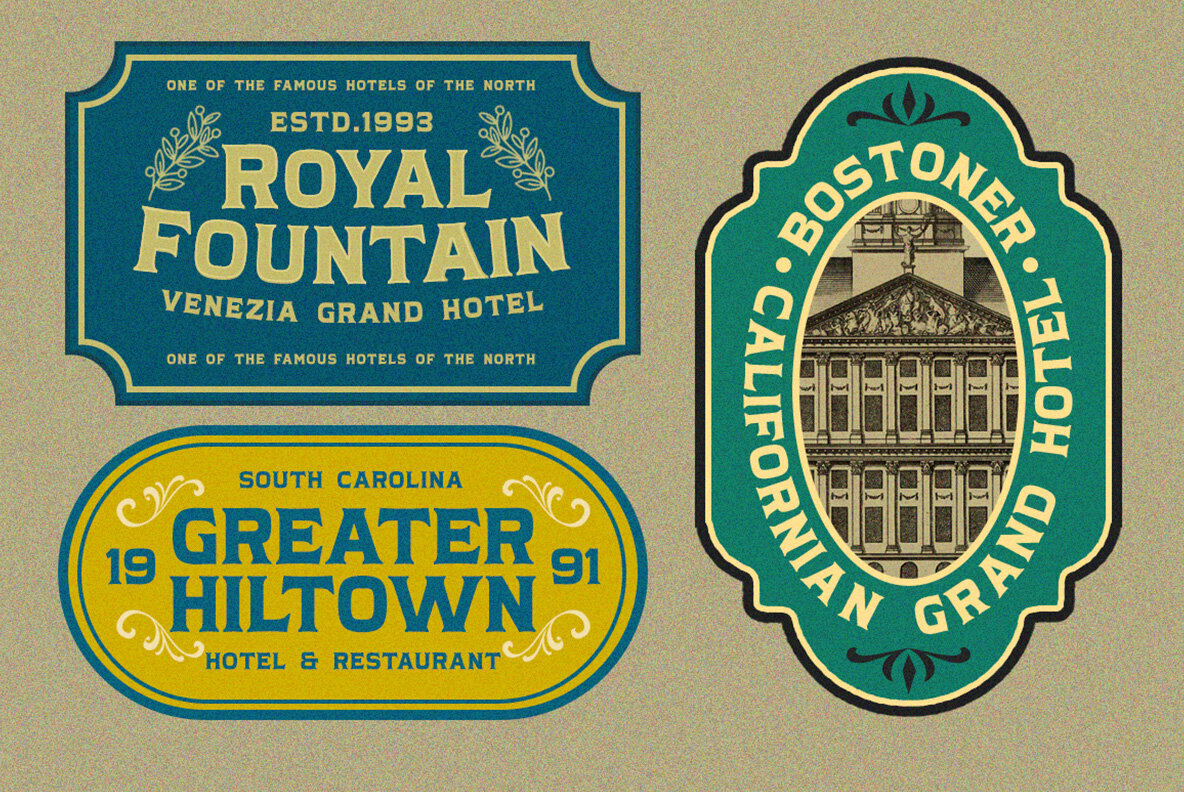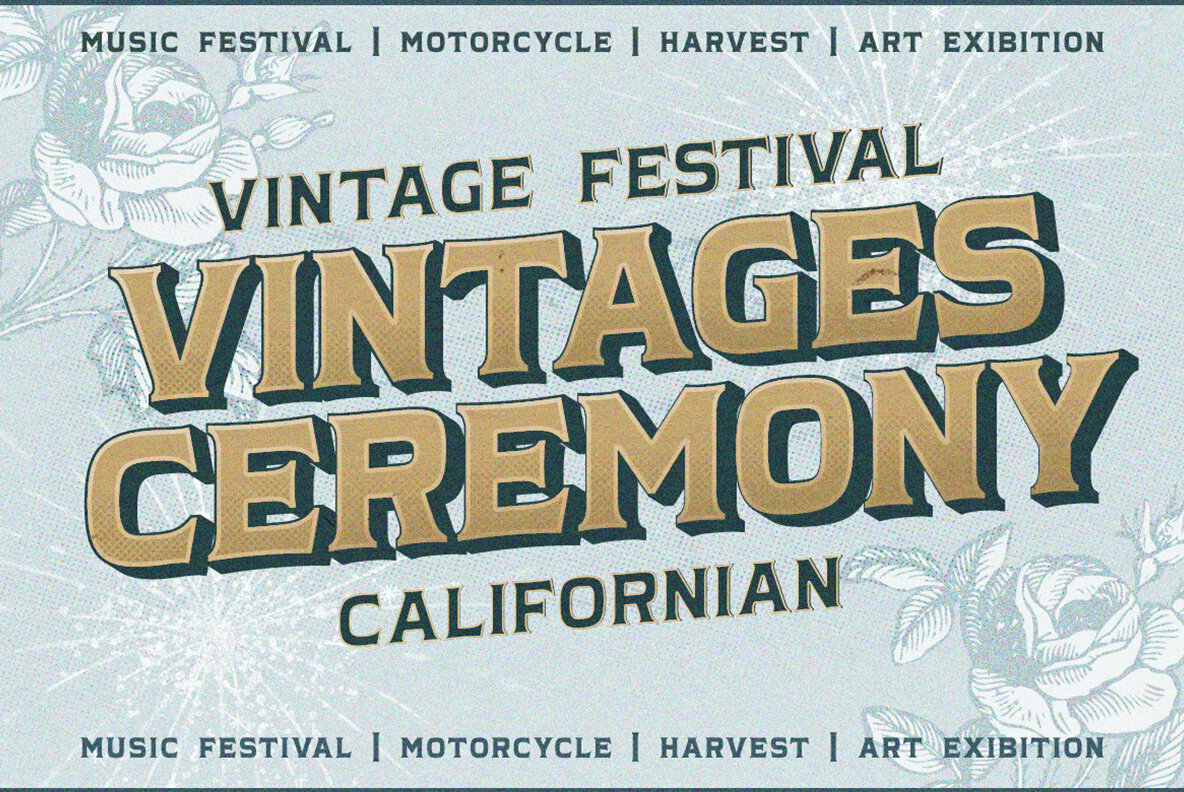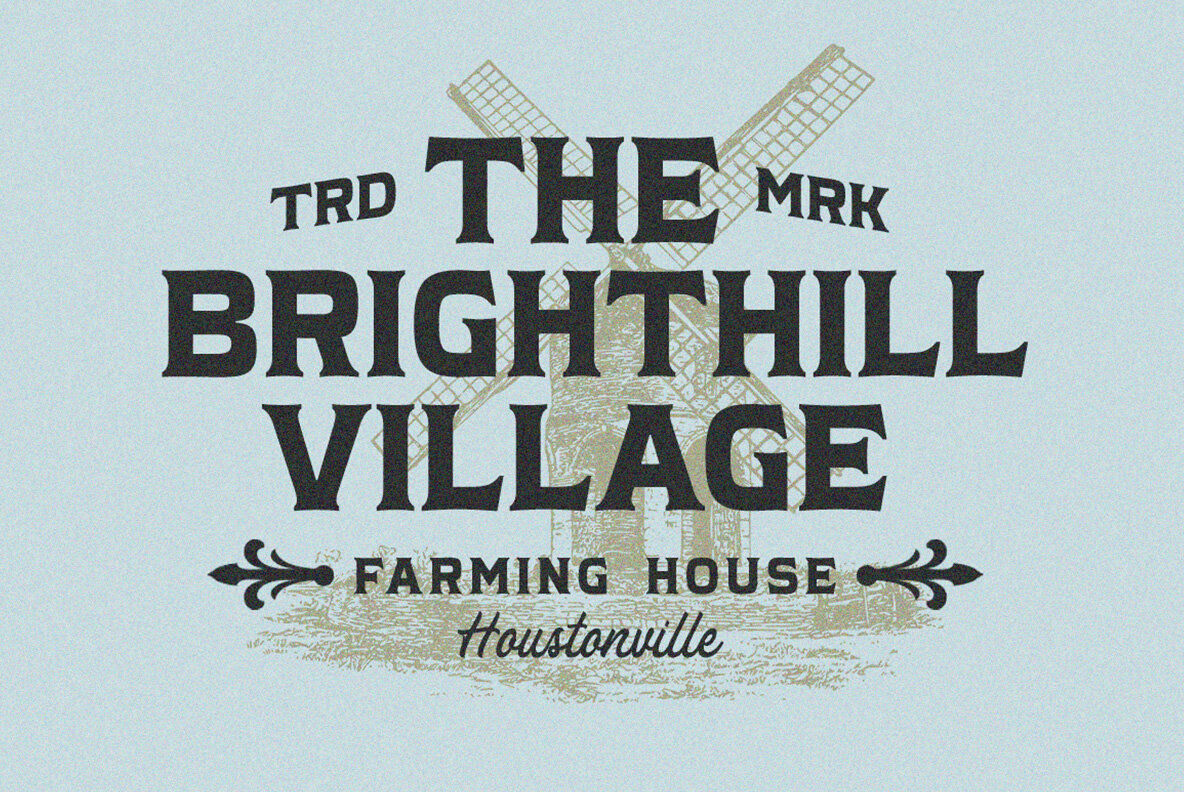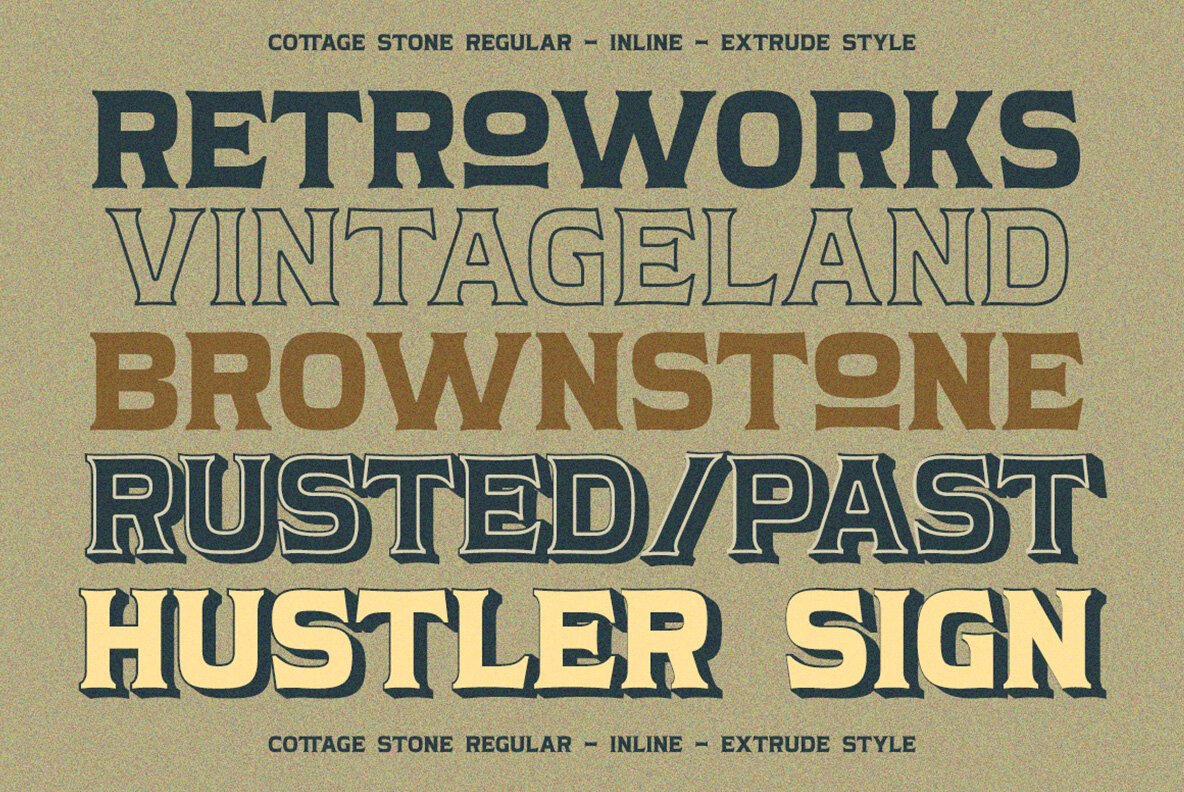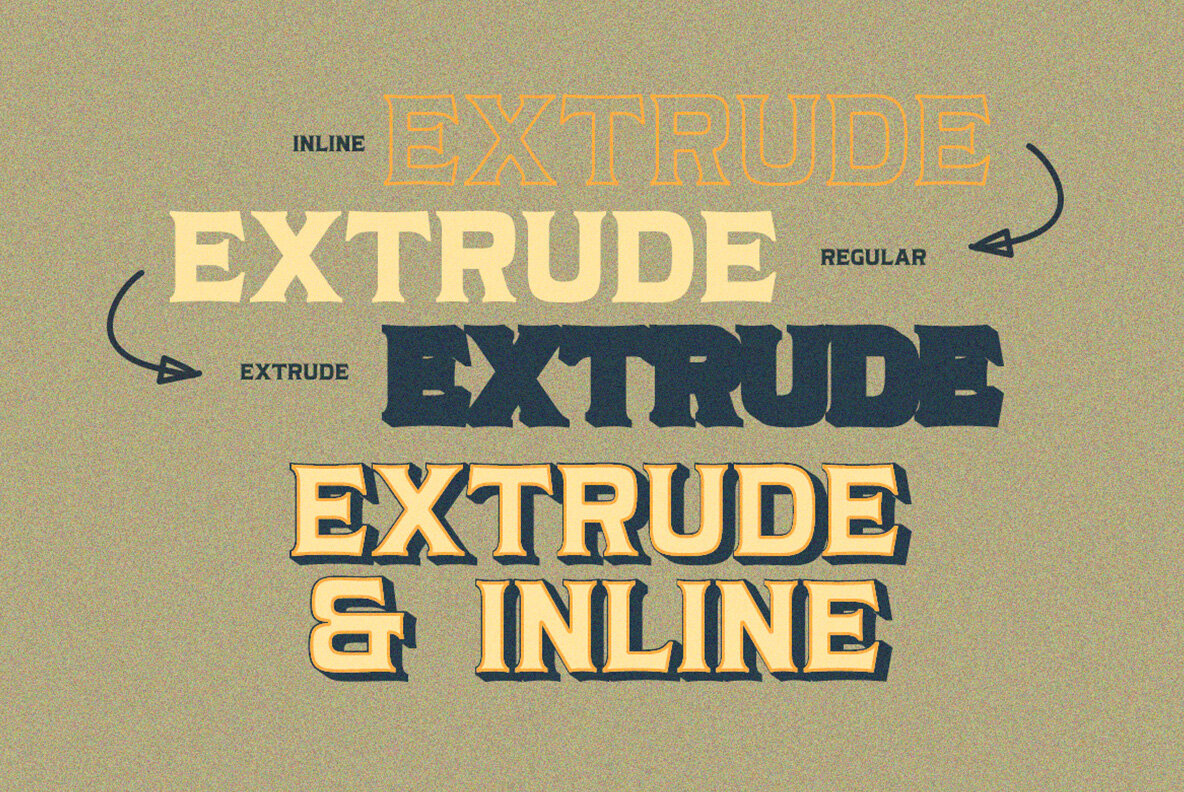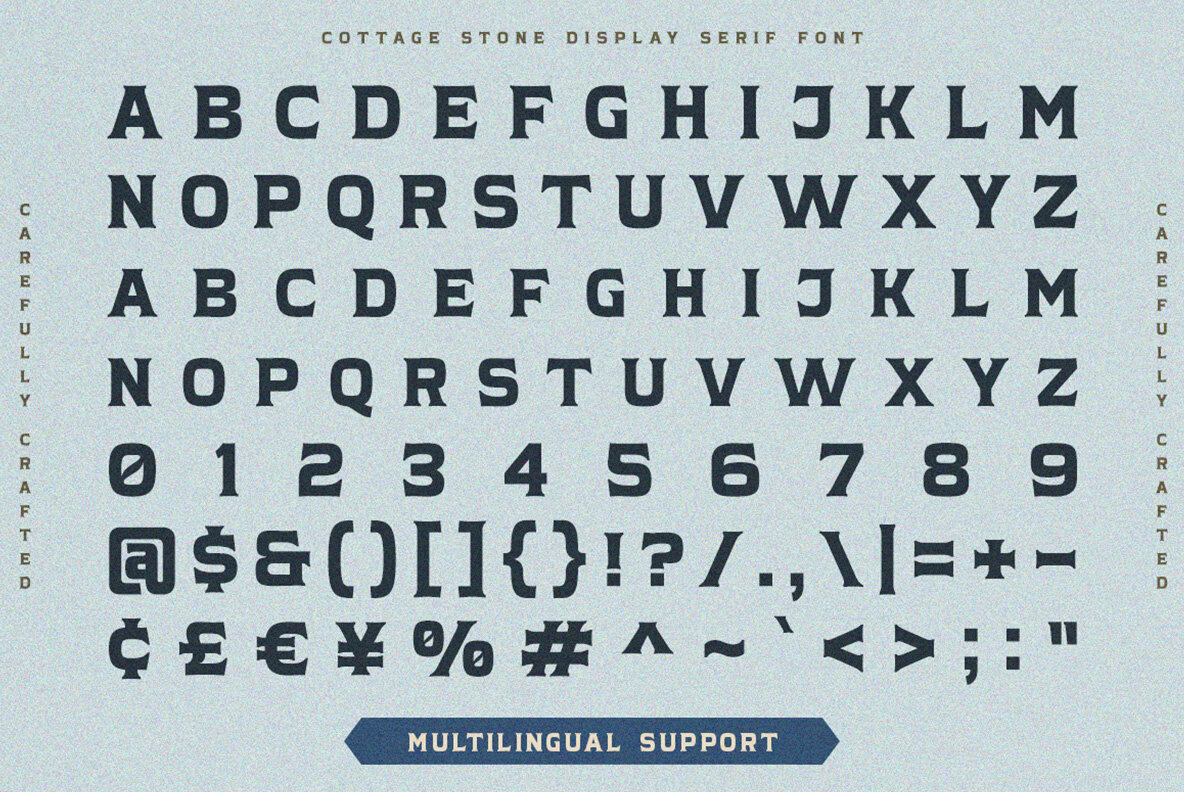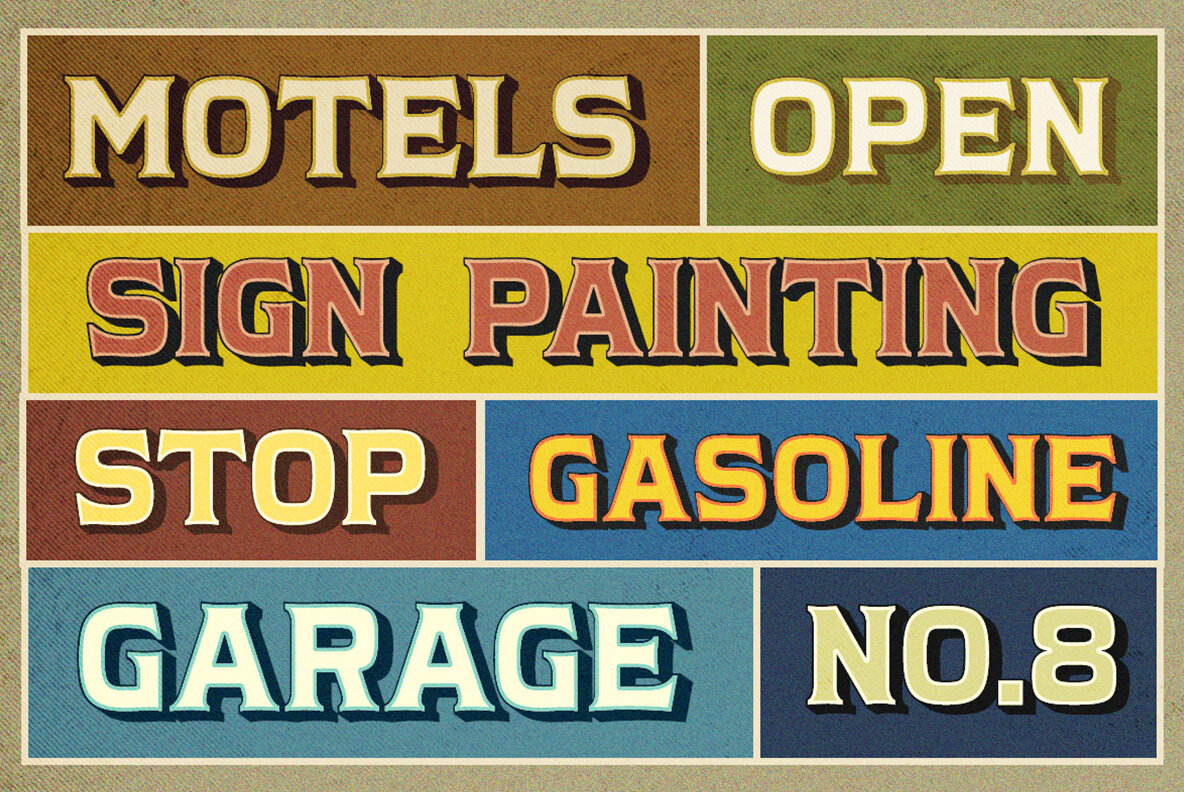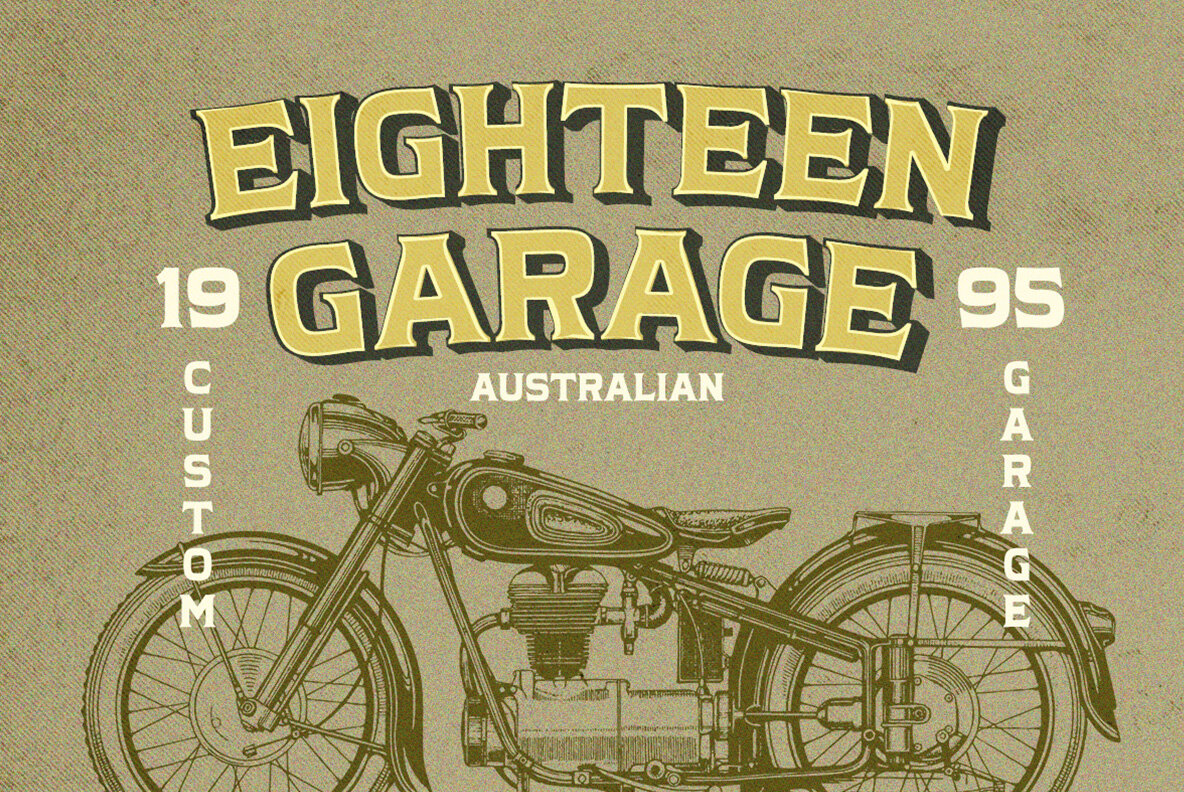
Cottage Stone Font
Cottage Stone is a stunning serif font possessing classic and vintage vibes. This typeface was flawlessly crafted for showcasing distinctiveness, perfect for all kinds of formal applications ranging from invitations to logos, magazines to books, greeting/wedding cards to packaging labels - ideal for any kind of advertising you have in mind!
- 3 Styles : Regular, Inline & Extrude
- Lowercase & Uppercase
- Numbers and punctuation